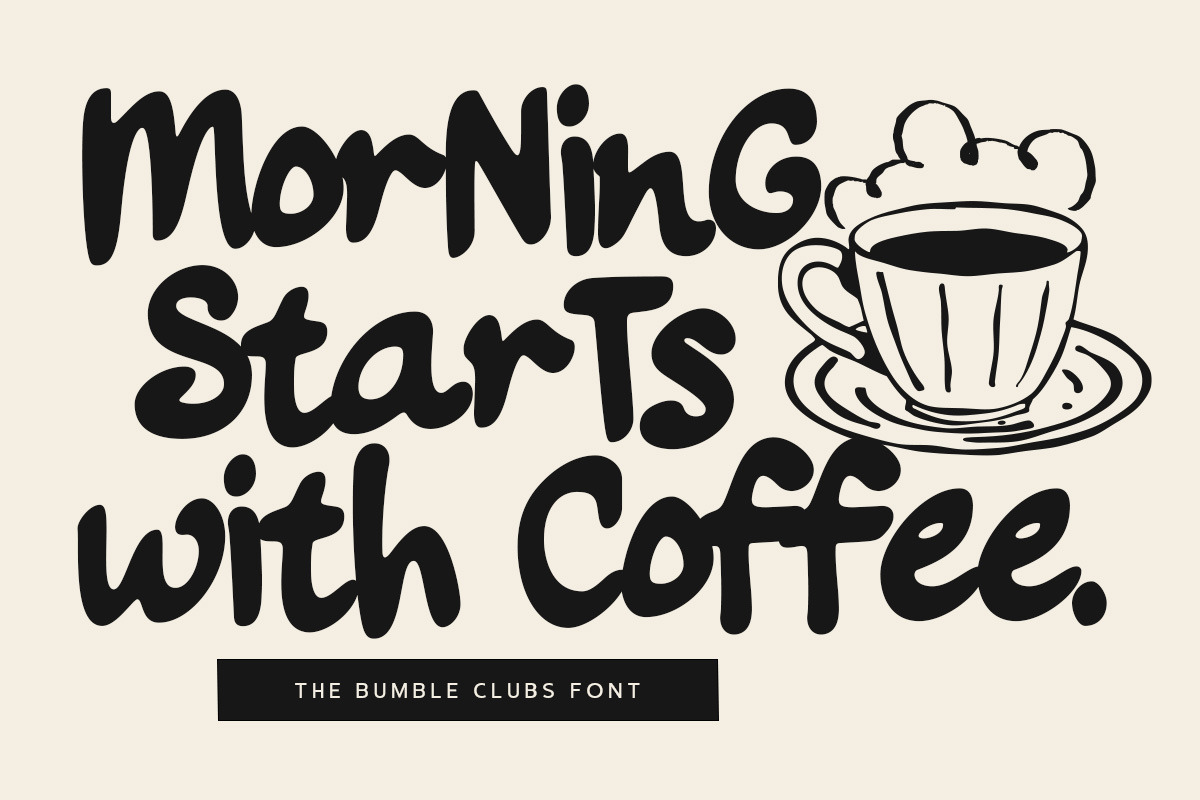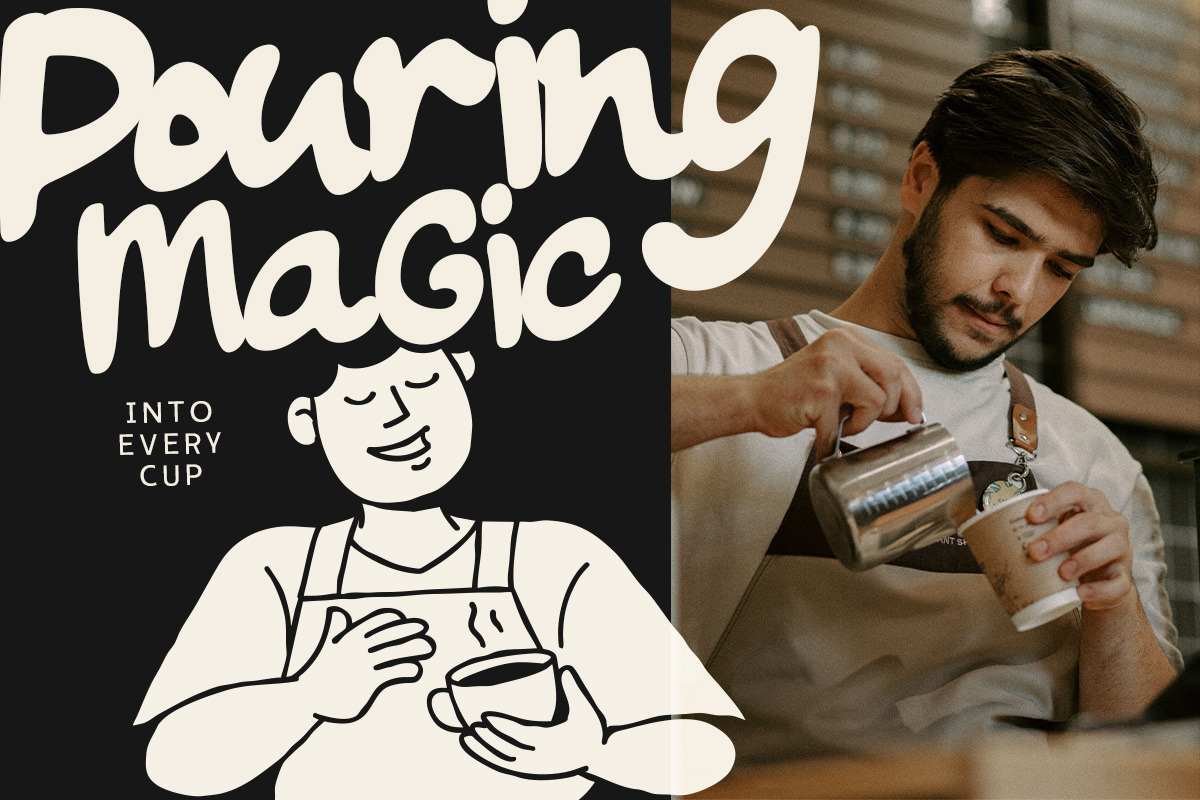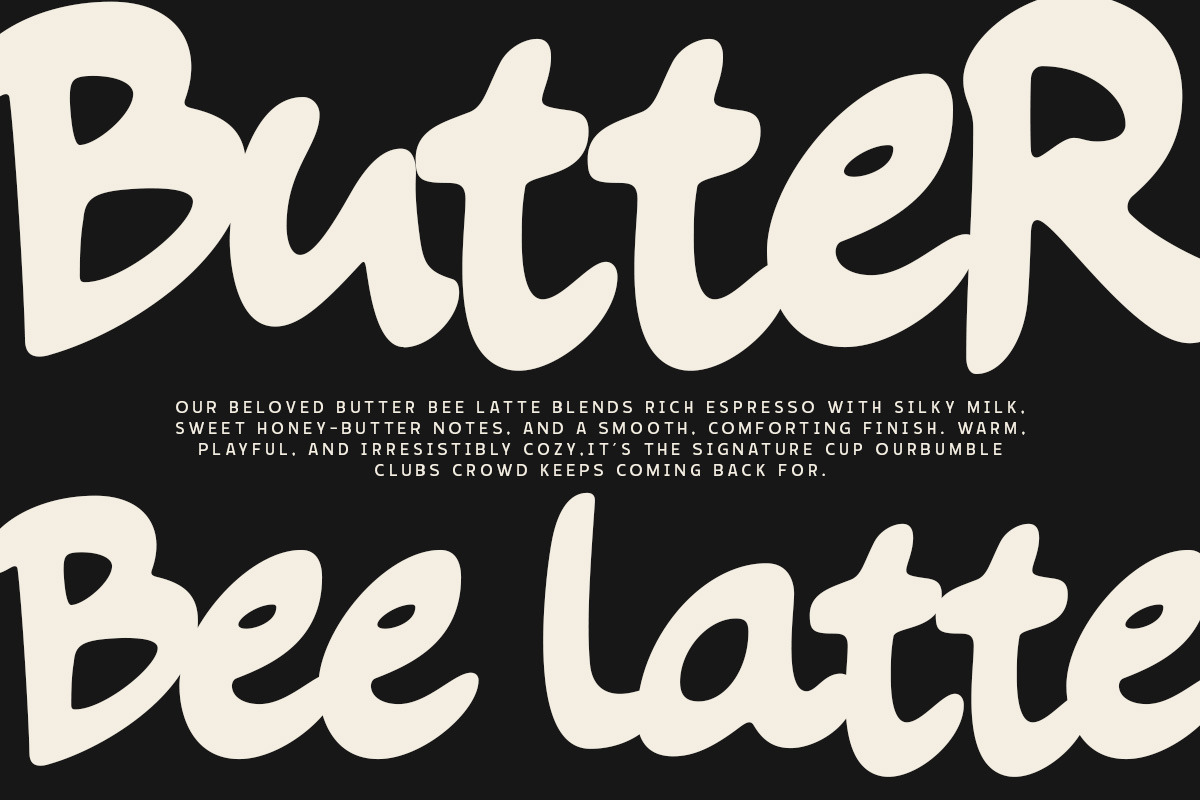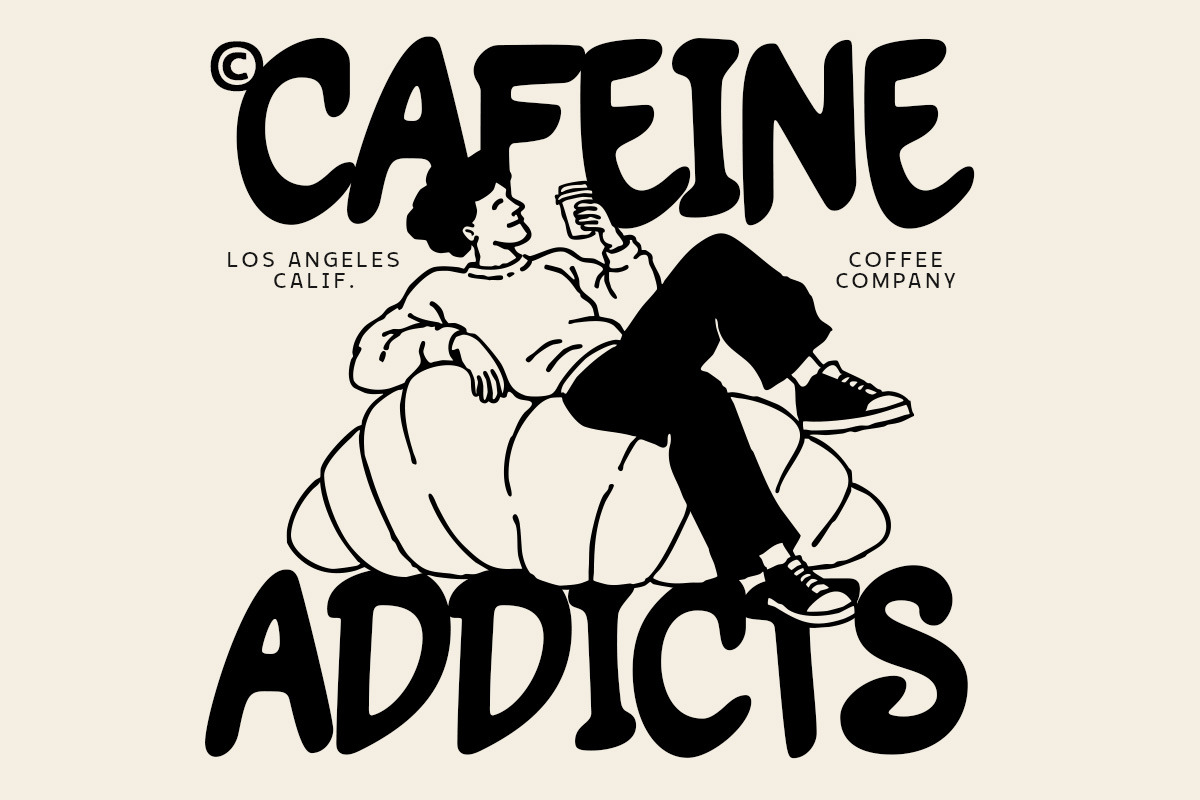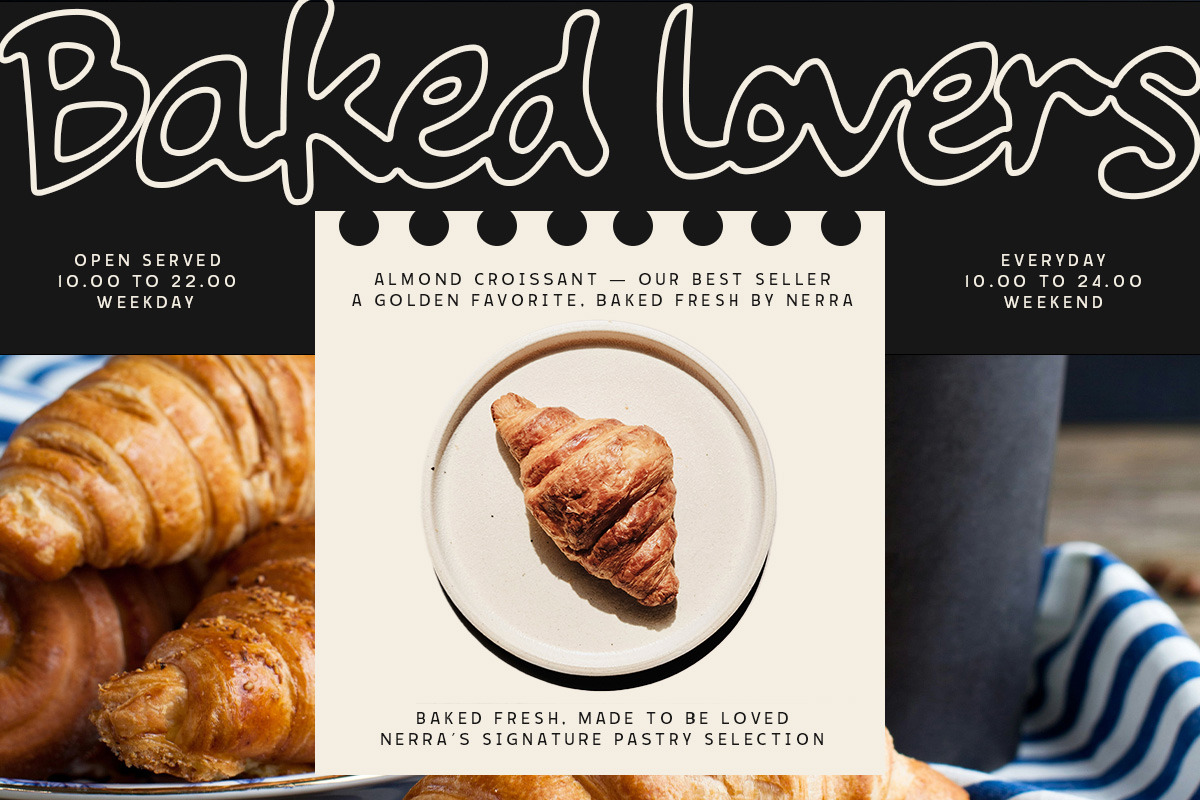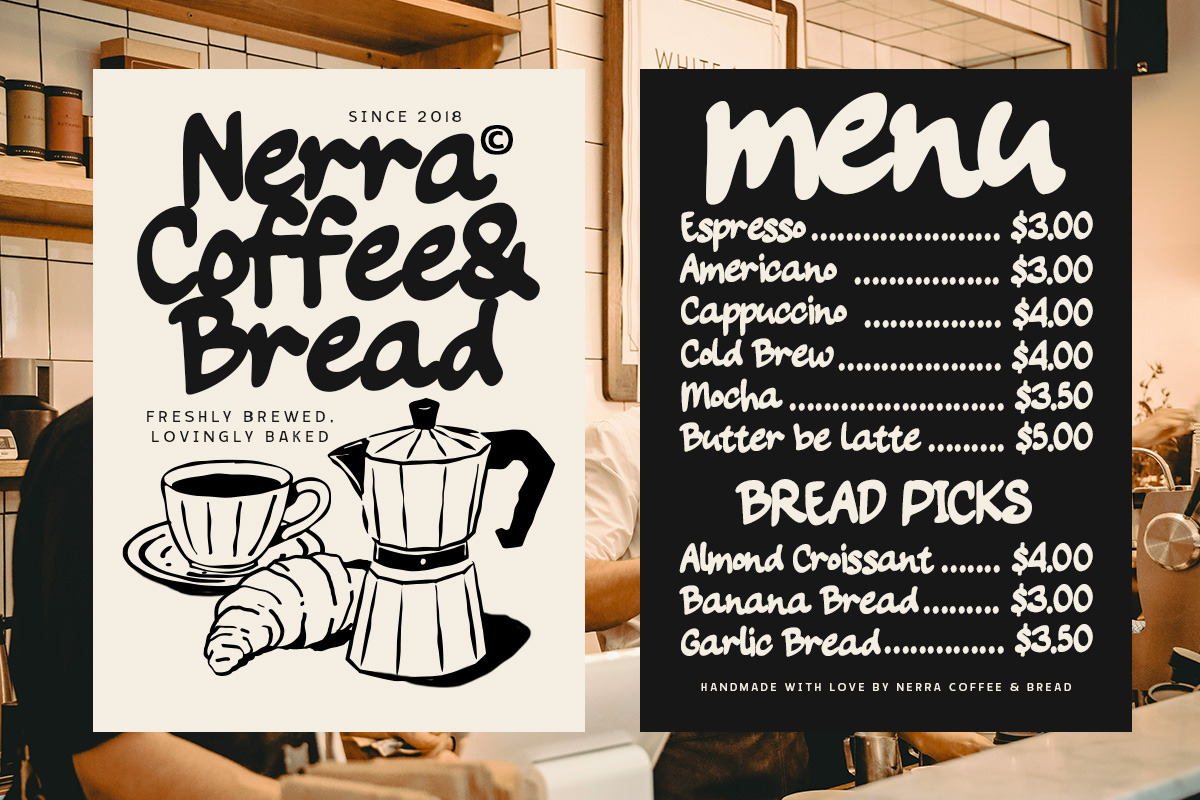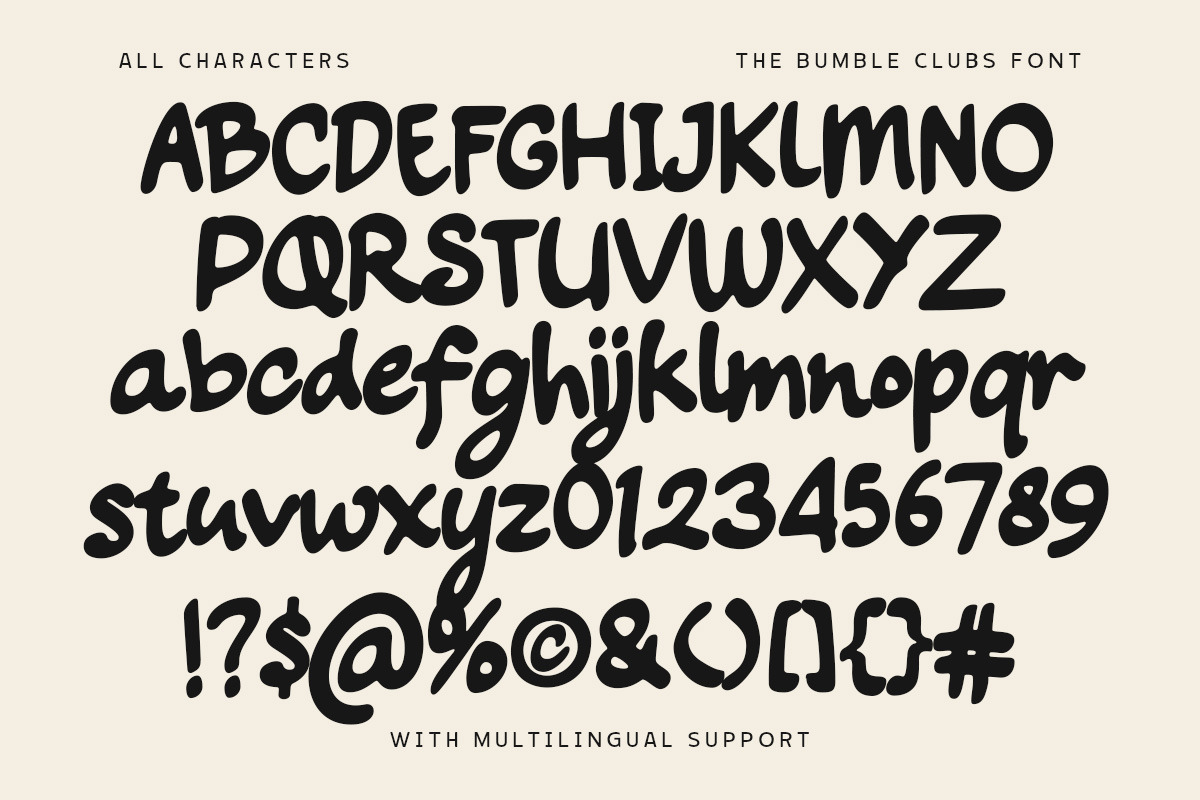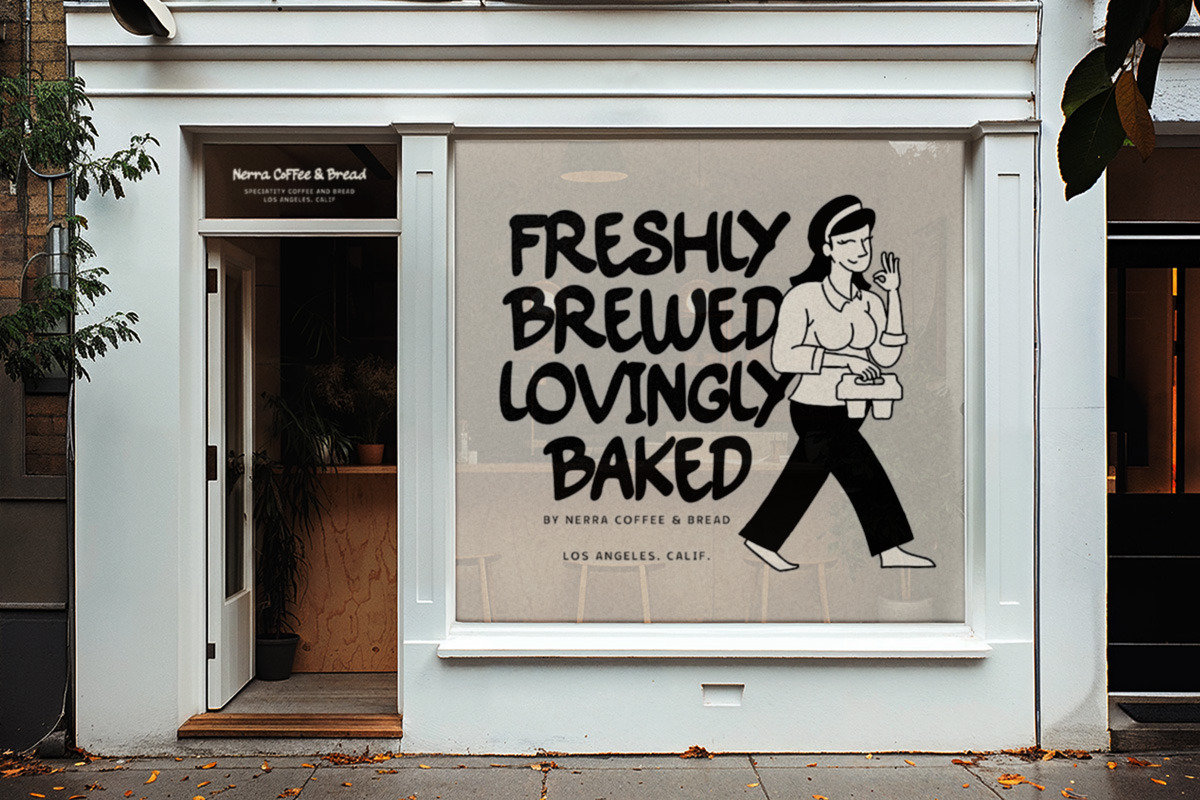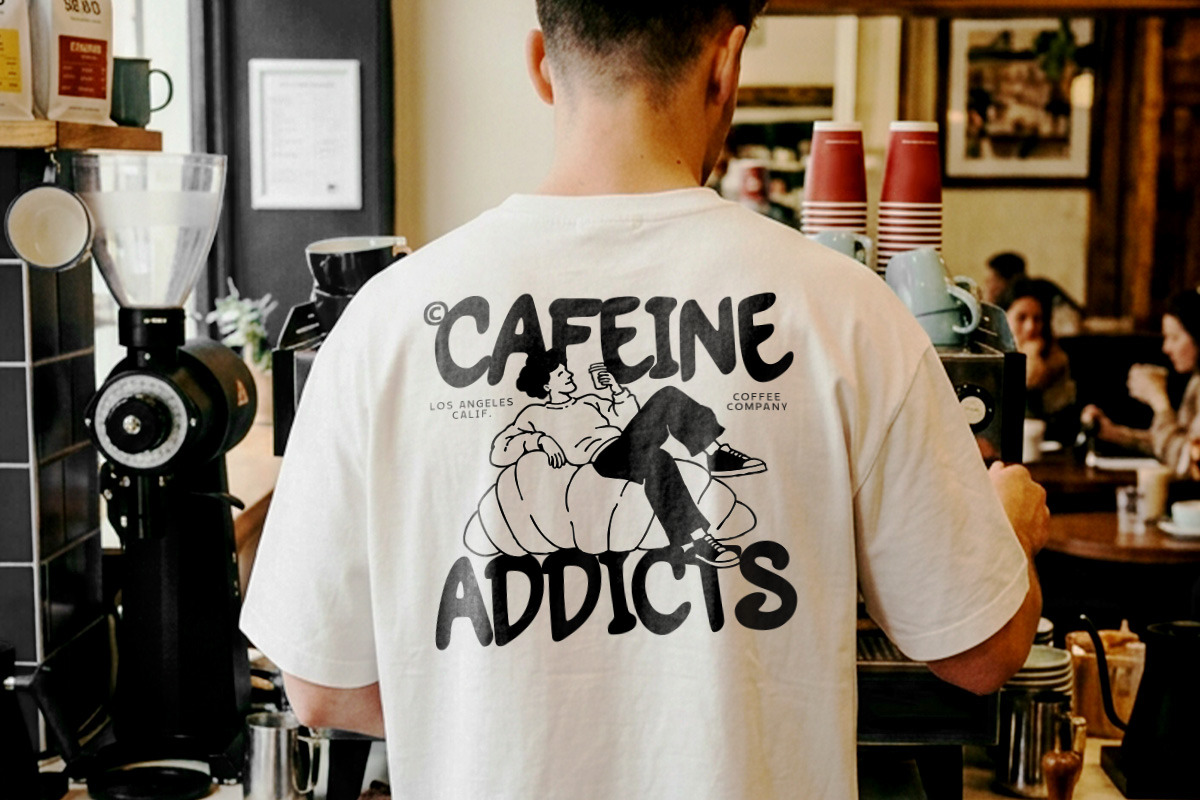
The Bumble Clubs – Playful Hand-Crafted Display Font
Add instant joy and personality to your designs with The Bumble Clubs, a bold, handcrafted display font by Mojiscope Creative Std. Featuring thick, organic curves and an authentic hand-lettered feel, this font breaks away from rigid rules to bring a fun, friendly, and retro-pop vibe to your creative work.
Kids' Products, Toys & Book Covers
Funky Apparel & T-Shirt Graphics
Food & Snack Packaging
Eye-Catching Social Media Headlines & Posters
Playful Brand Identities & Stickers